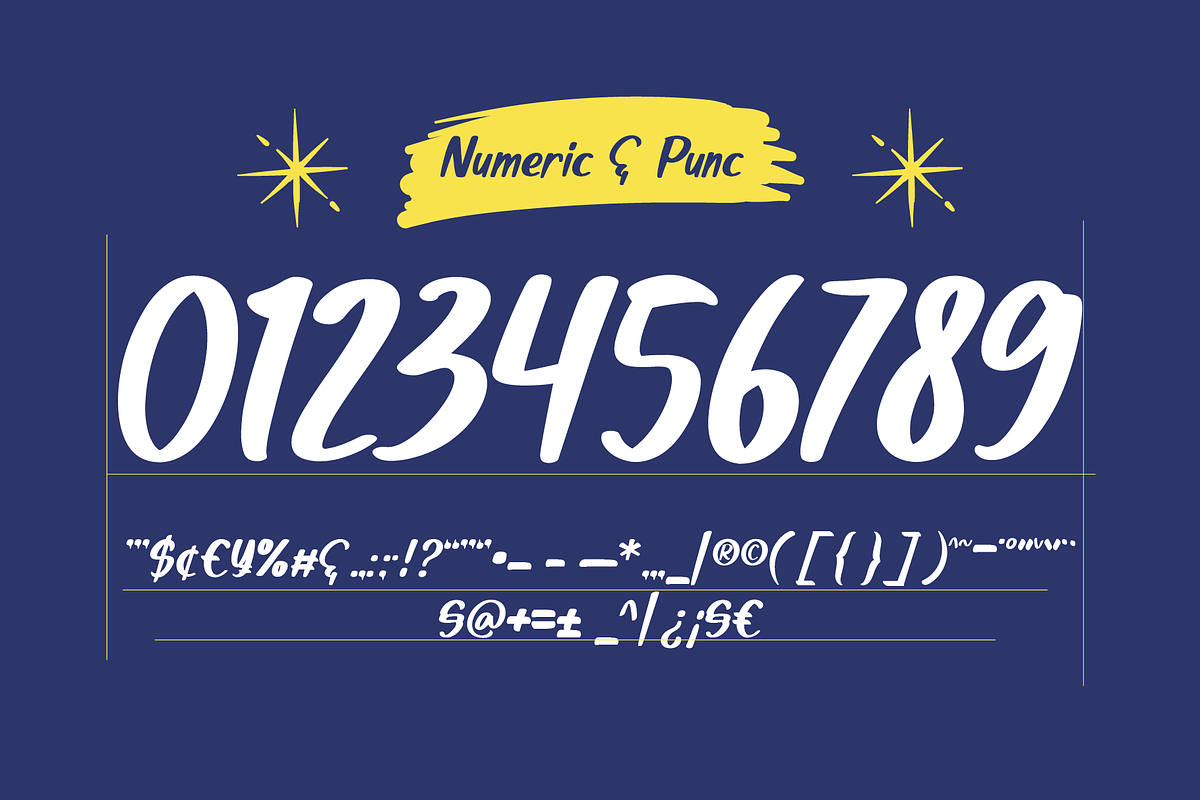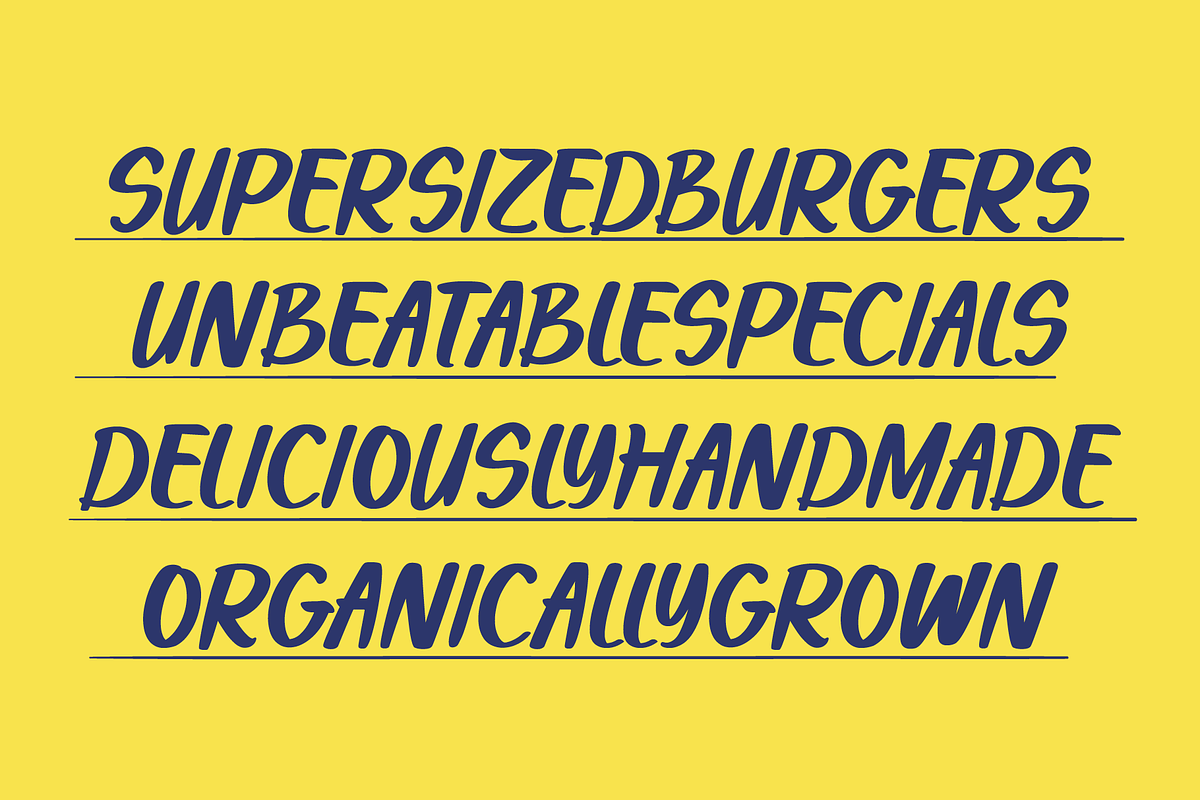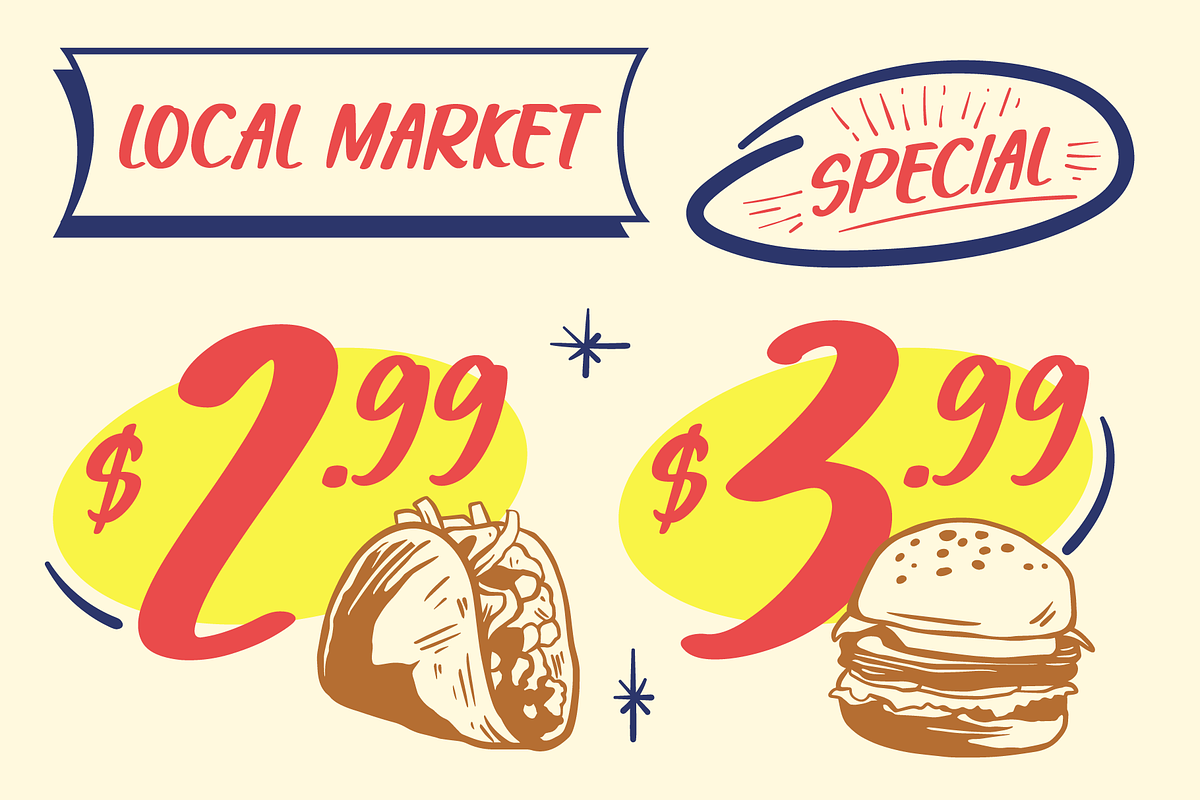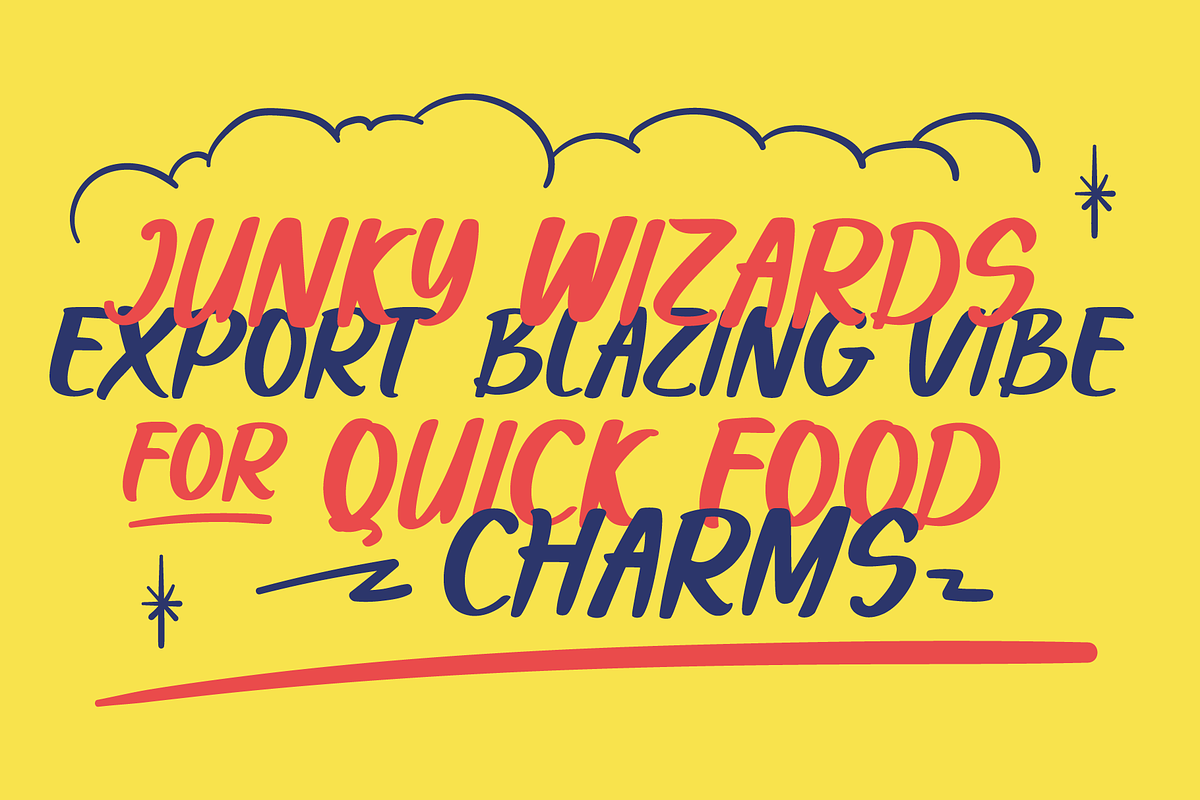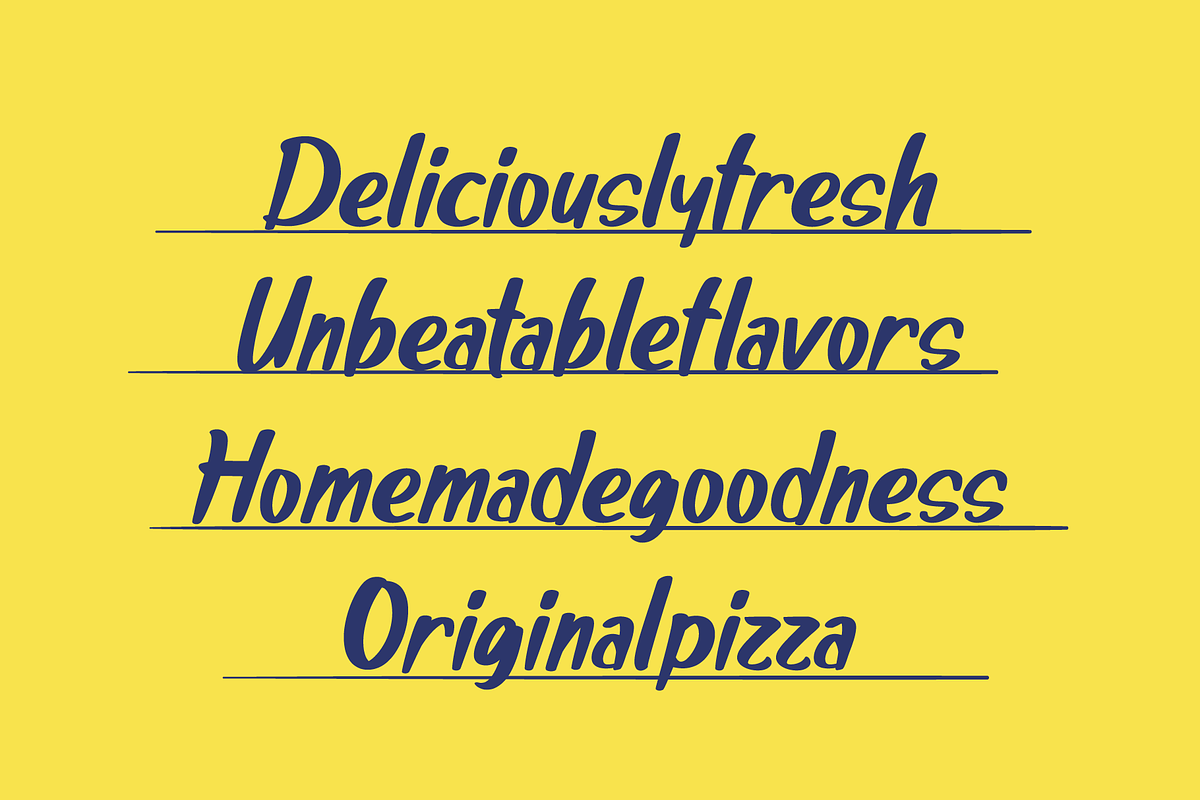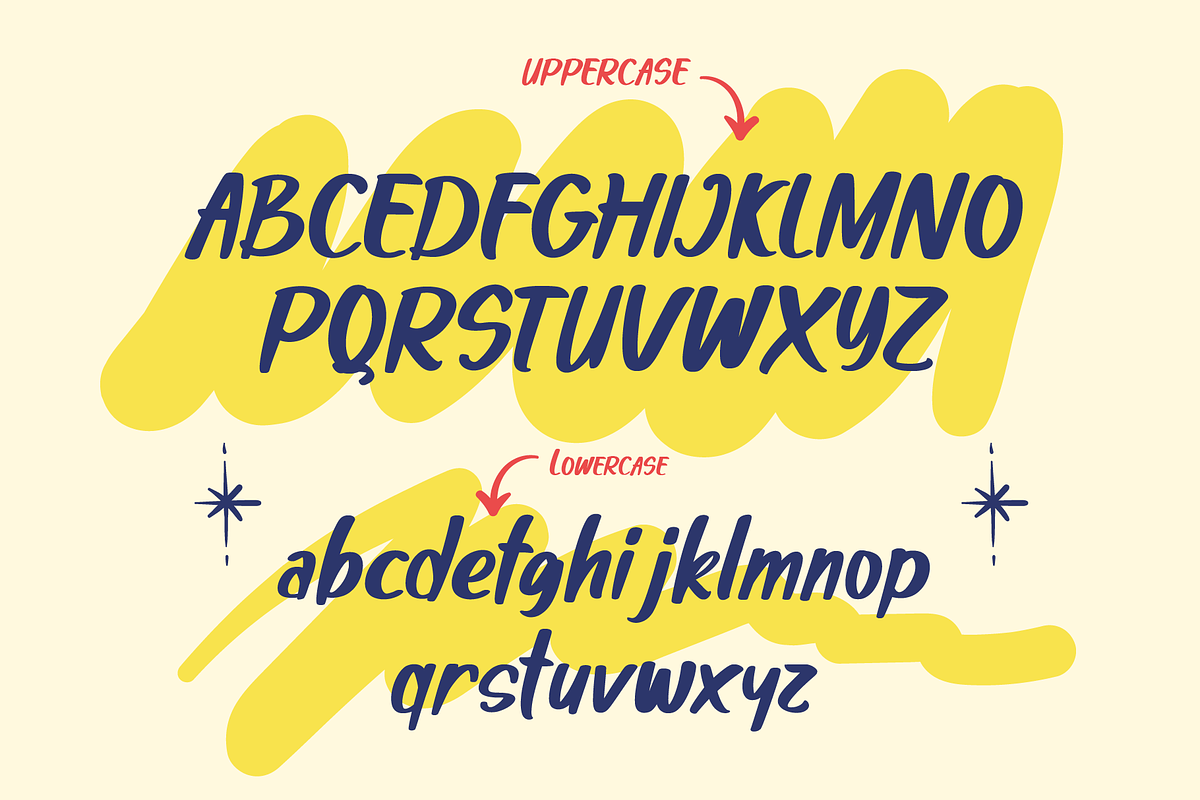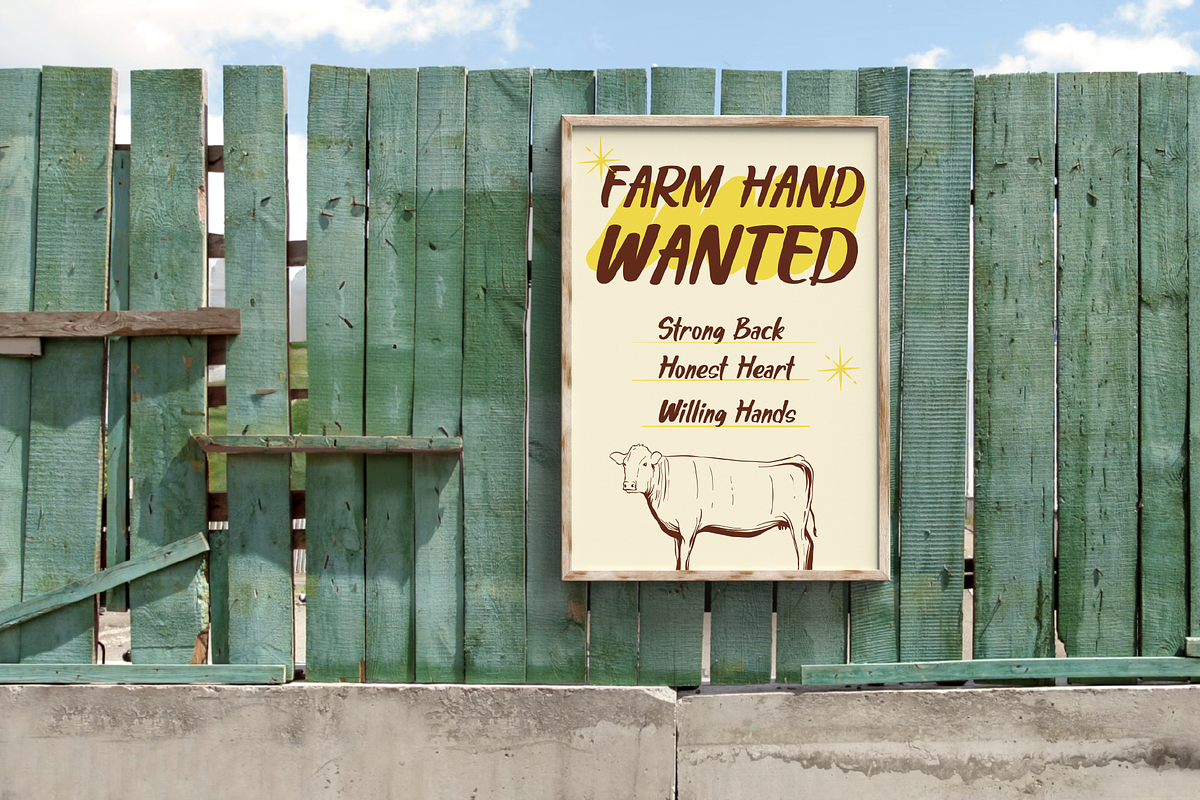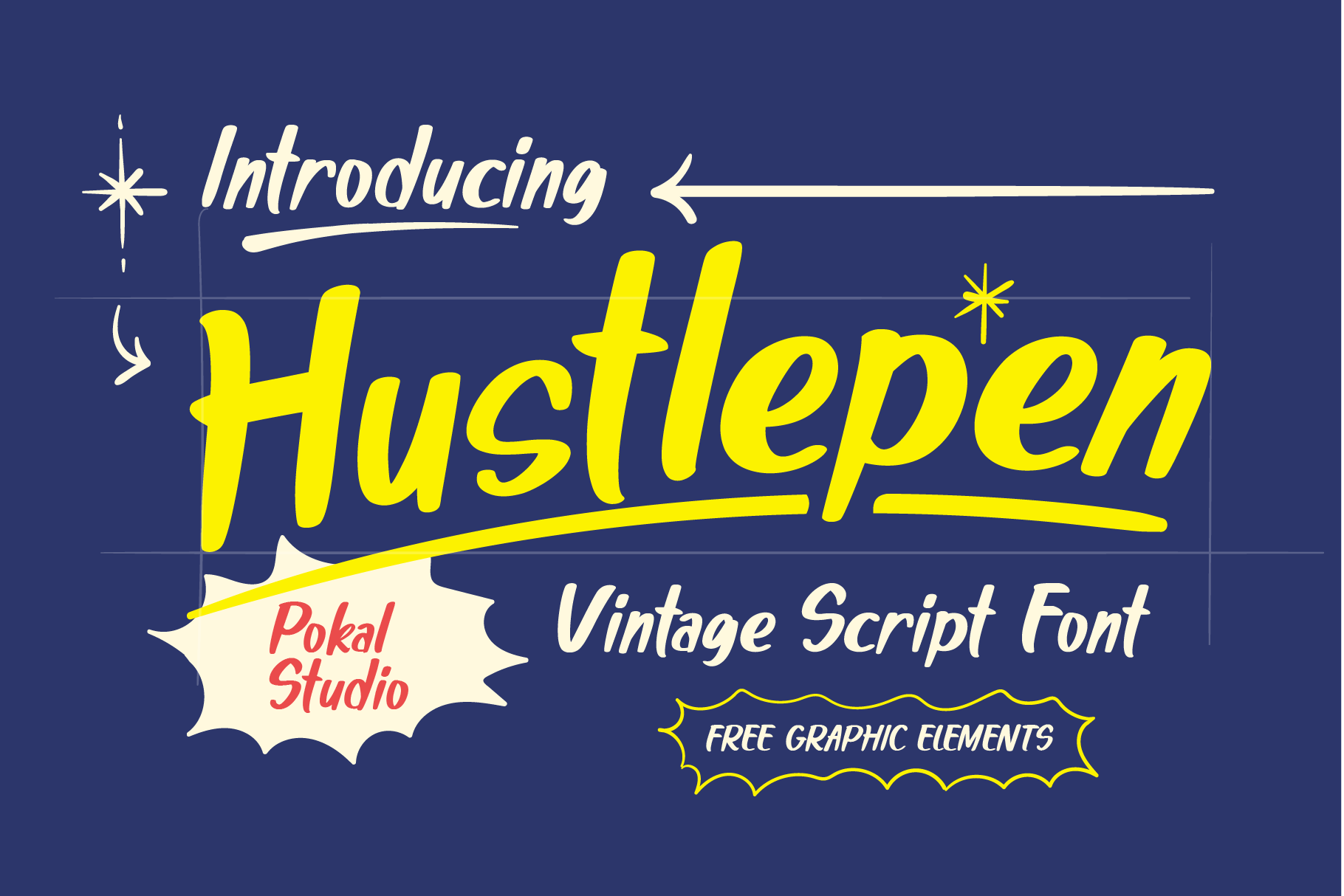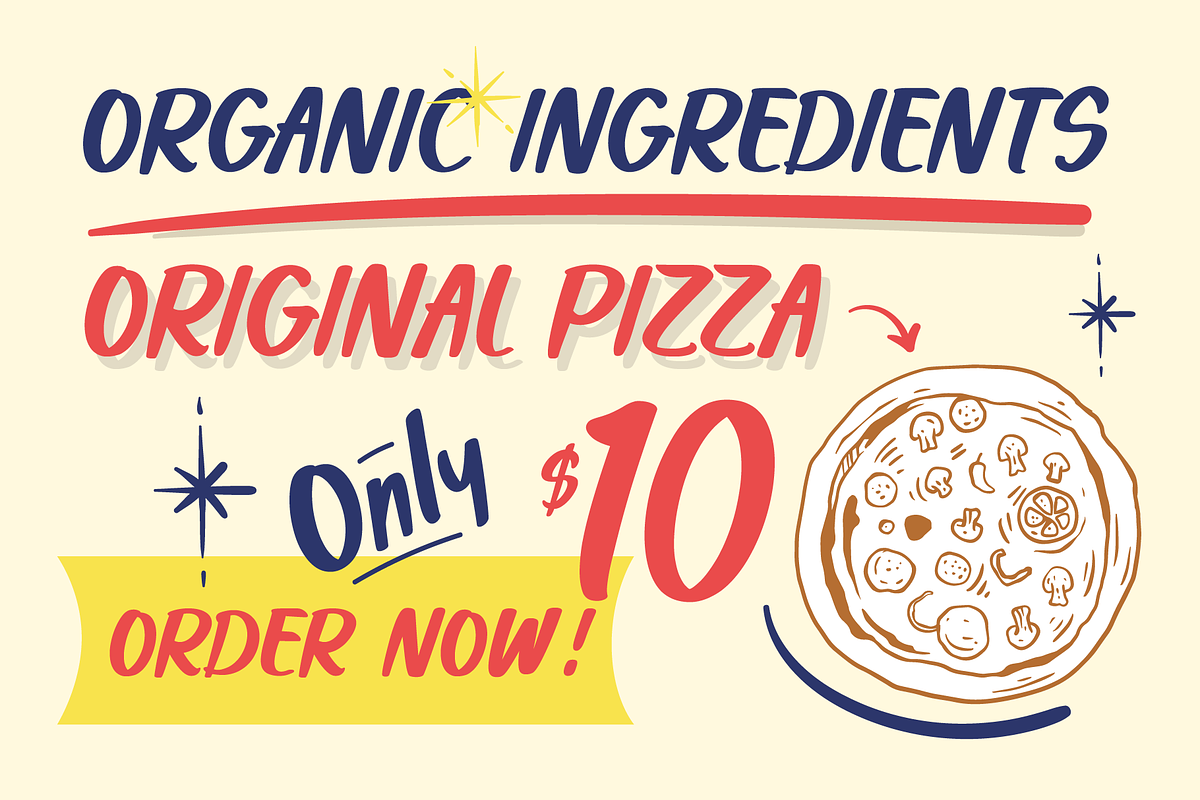
Hustlepen Vintage Script Font
Hustlepen – Vintage Brush Script Font for Retro Signs & Nostalgic Branding
Bring timeless retro charm to your designs with Hustlepen, a bold vintage brush script font inspired by classic retro signs, diner menus, and hand-painted market lettering. Crafted with smooth, flowing strokes and bold personality, Hustlepen captures the warmth of traditional sign painting while offering modern versatility.
Perfect for vintage logos, retro packaging, hand-drawn labels, and classic signage, this retro script font blends nostalgic flair with contemporary style. Its handcrafted brush gives every word a touch of authenticity — ideal for projects that need both boldness and friendliness.
- Vintage & retro sign design
- Food & beverage menus
- Packaging & product labels
- Logos & branding with retro flair
- Posters & advertising
- Social media graphics
Add nostalgic energy to your next design with Hustlepen — a vintage brush script that brings hand-crafted soul and retro sign style to every project.